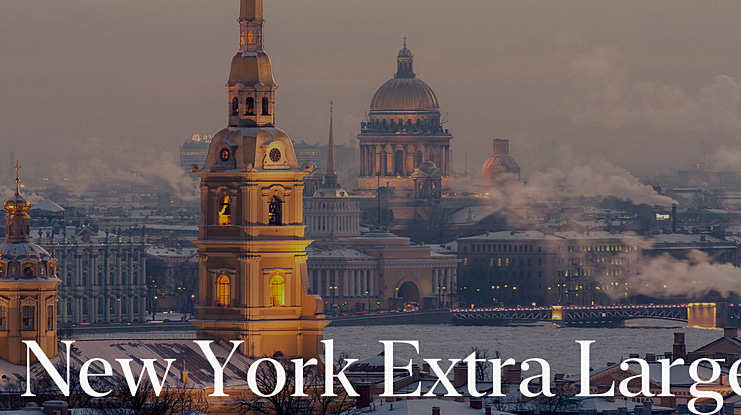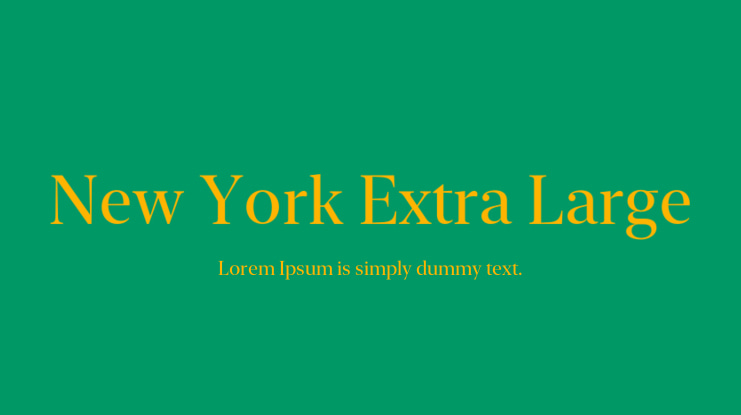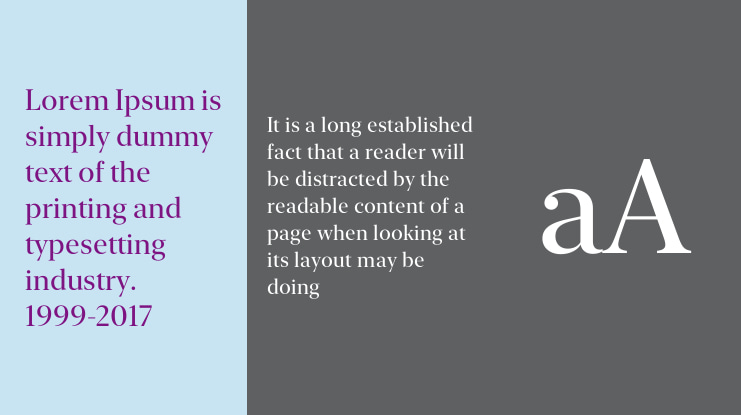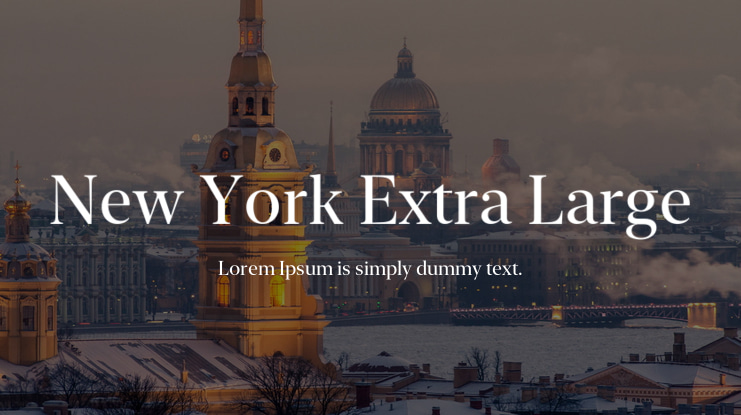
New York Extra Large Font Family
Apple Inc.
This all-new, Apple-designed serif typeface is based on essential aspects of historical type styles and is designed to work on its own as well as alongside San Francisco.